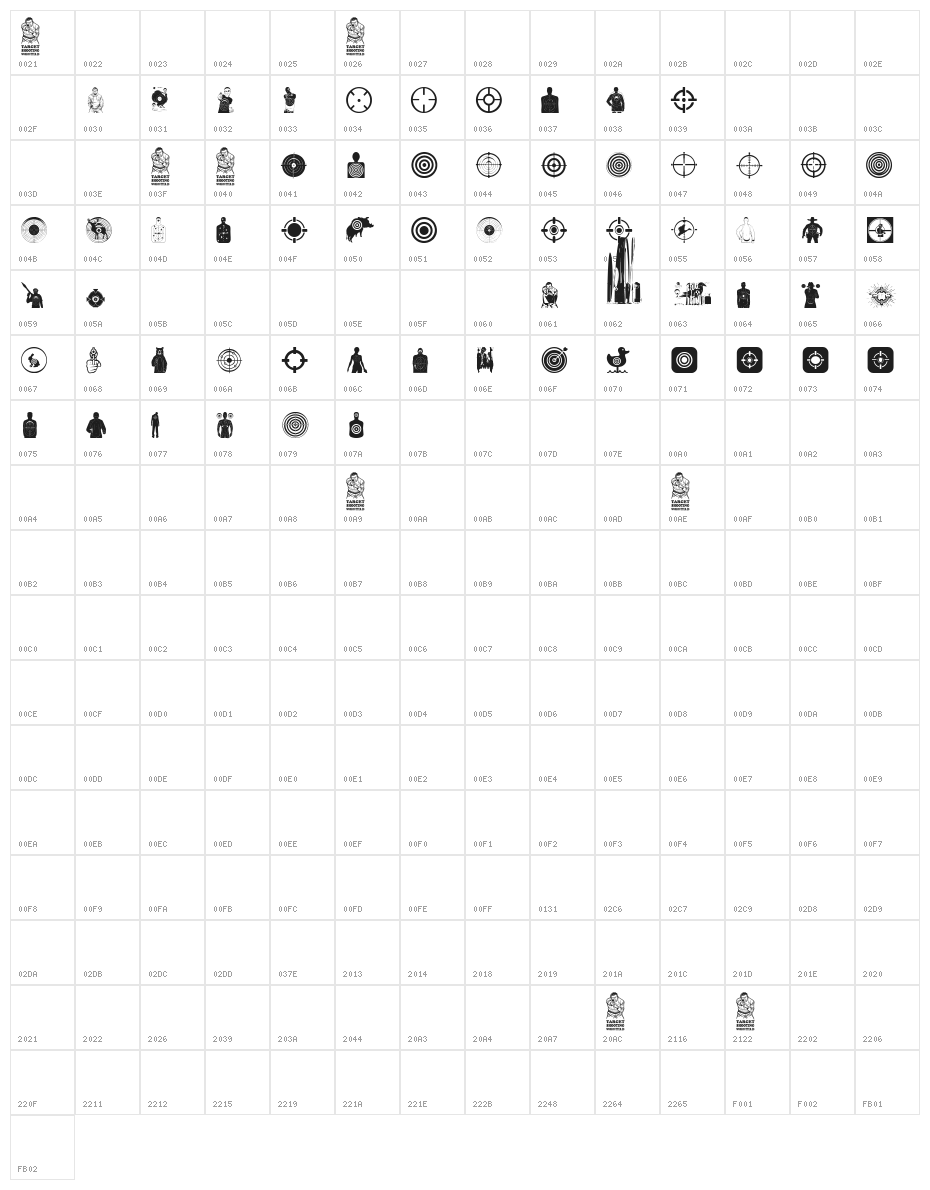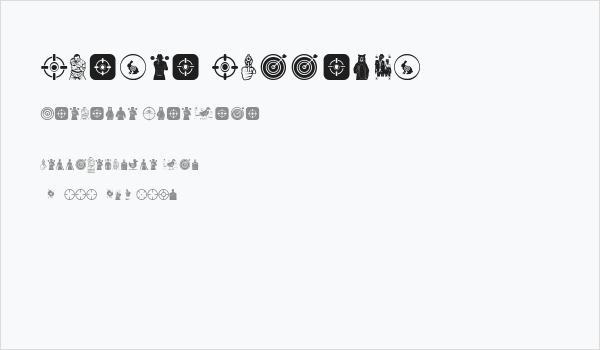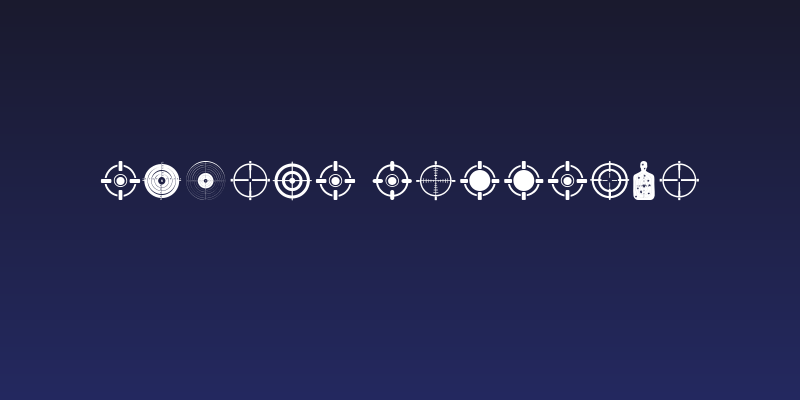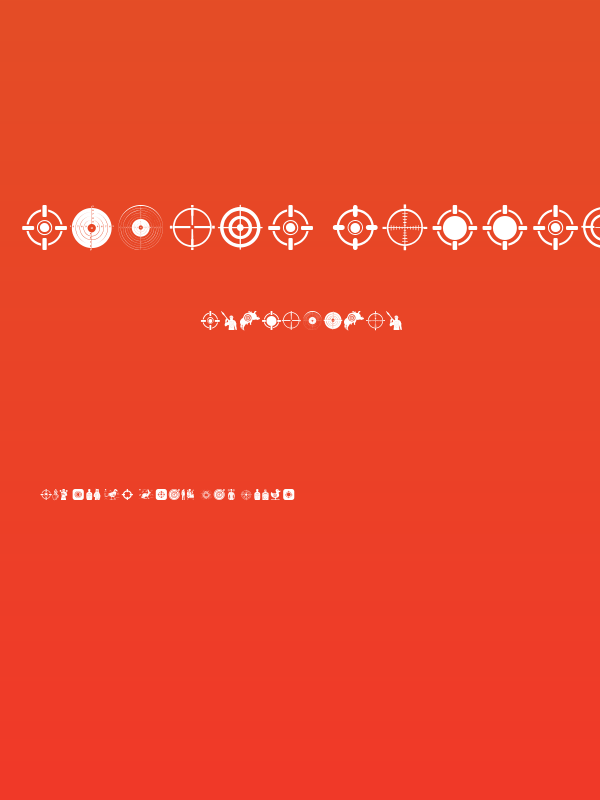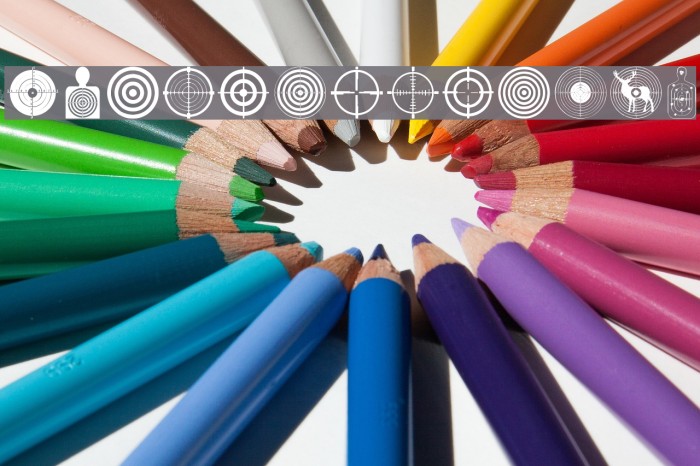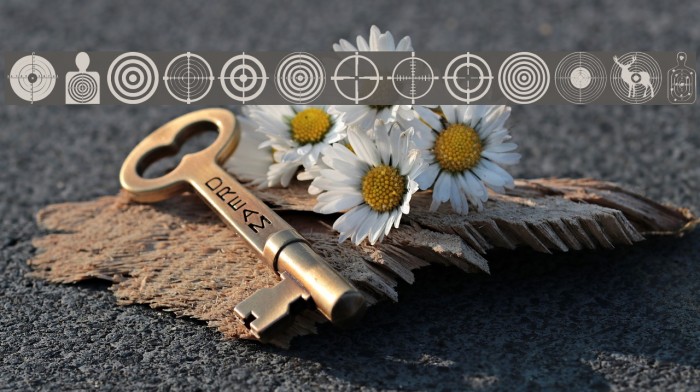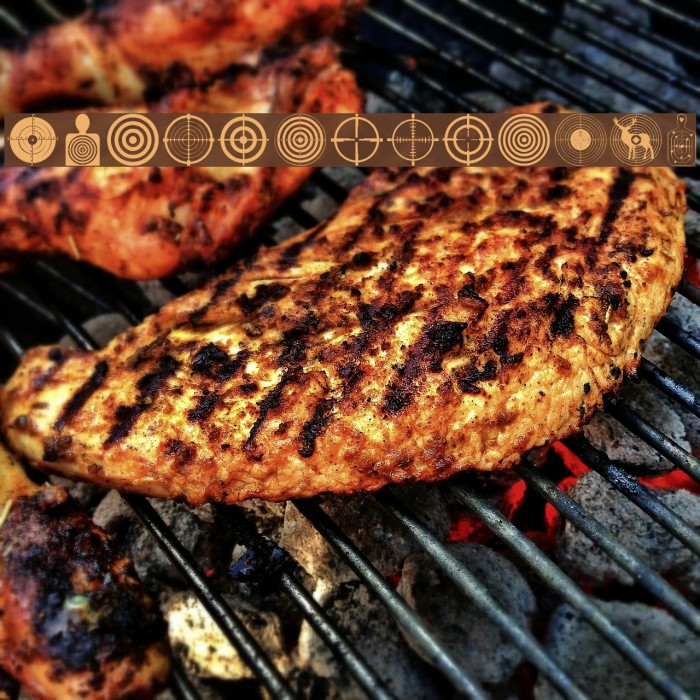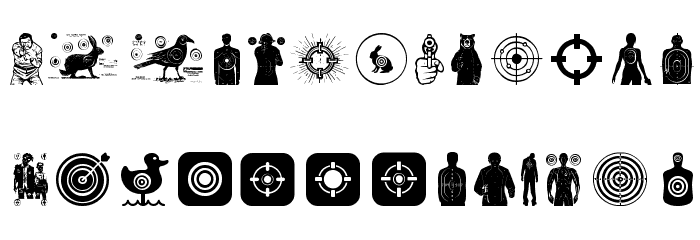
Target Shooting Font
Target Shooting Description
A collection of bold, high-contrast pictograms and silhouettes themed around target shooting, including bullseyes, crosshairs, animal and human targets, and shooters. The glyphs are solid, mostly geometric, and highly legible, with a strong visual impact.
| Overall Style | Decorative, Modern, Thematic |
| Use Case | Logos, Posters, Signage, Themed Graphics |
| Proposed Projects | Shooting range signage, sports event branding, themed posters, instructional materials, game interfaces. |